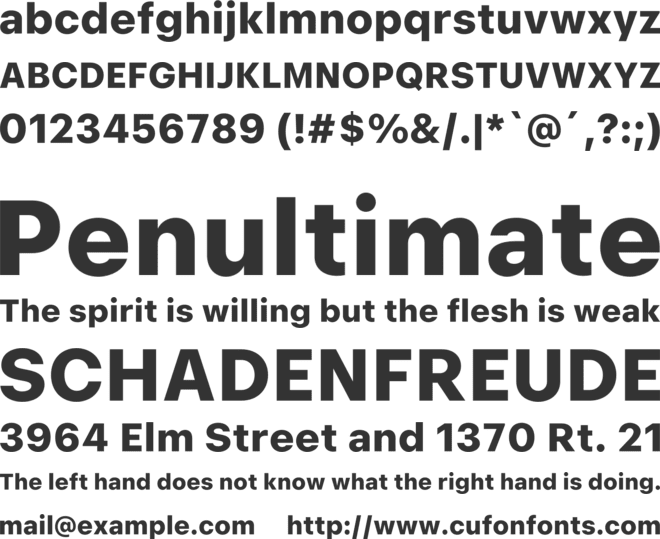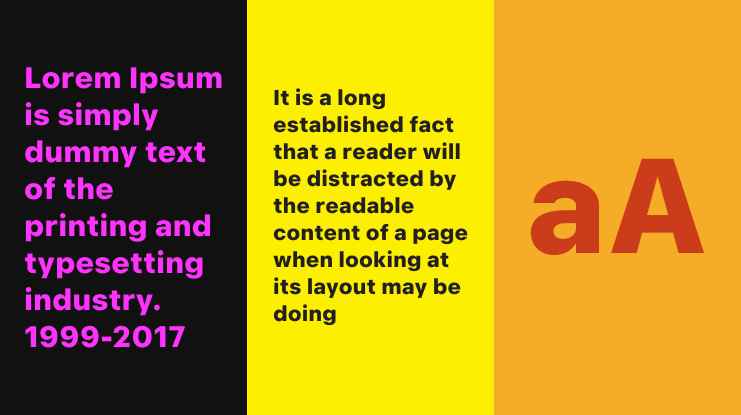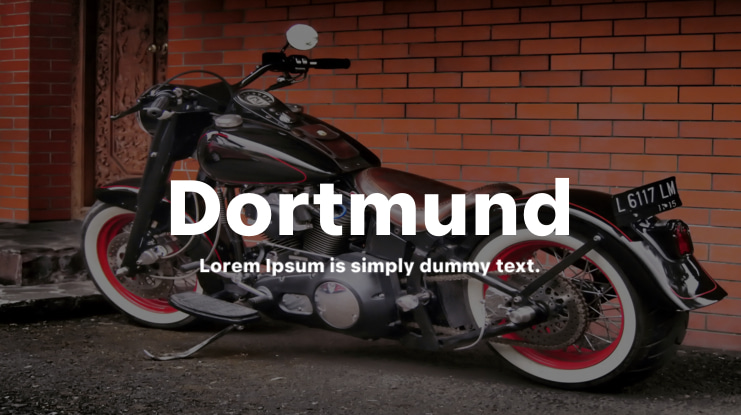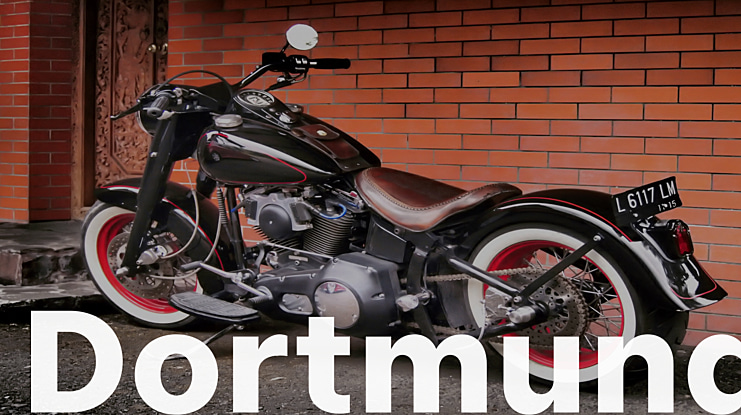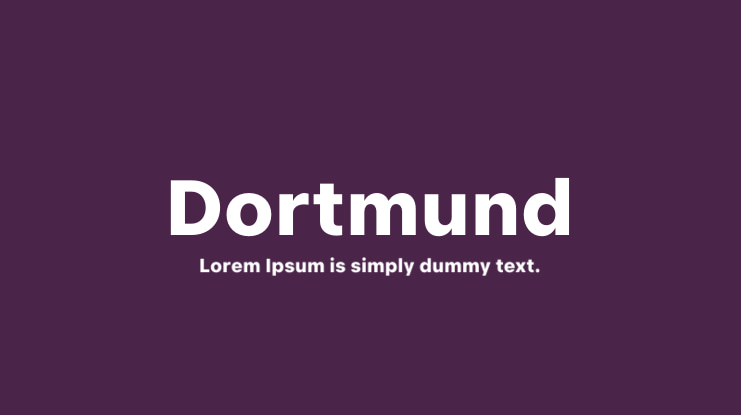
Dortmund Font
Ruls DoPaolo
Dortmund is a sans-serif type family designed to offer support for most Latin script languages.
Dortmund has nine weights, each with corresponding italics, 710 glyphs, and 17 OpenType features (aalt, calt, case, ccmp, dnom, frac, locl, numr, ordn, pnum, sinf, ss01, ss02, subs, sups, tnum, zero).
Dortmund supports 377 languages and covers 3 Unicode blocks (Basic Latin, Latin-1 Supplement, Latin Extended-A).